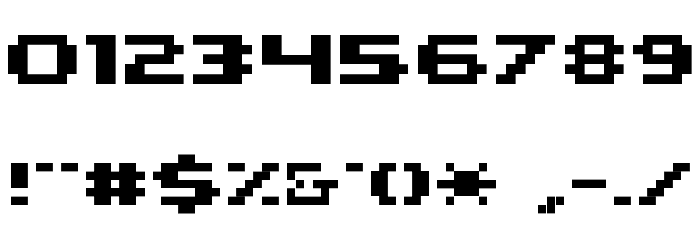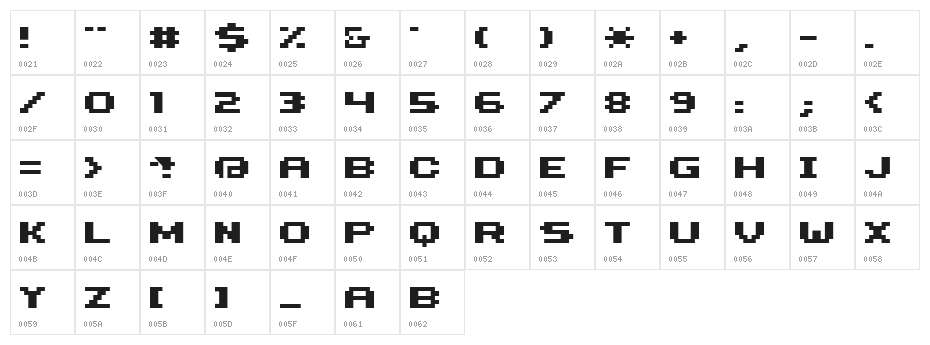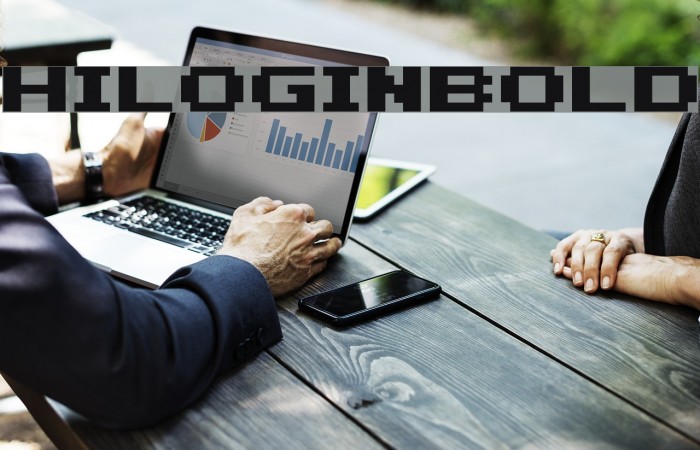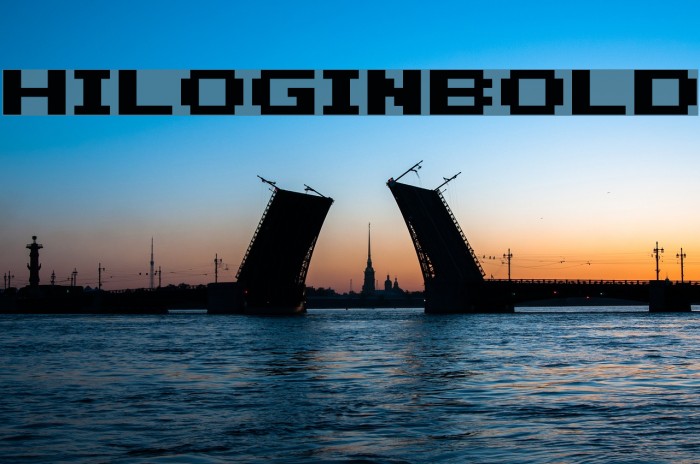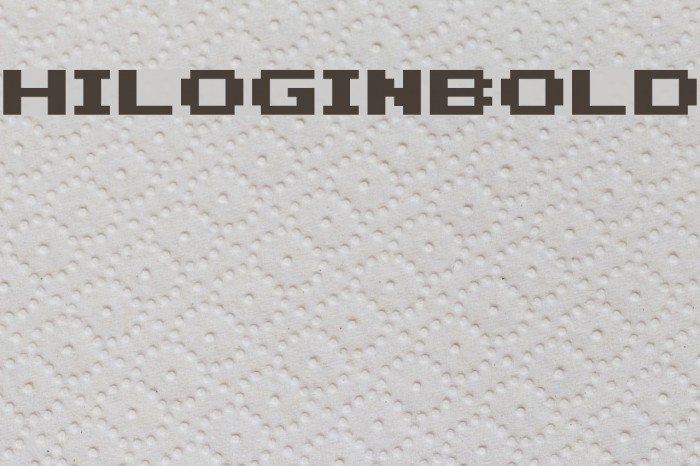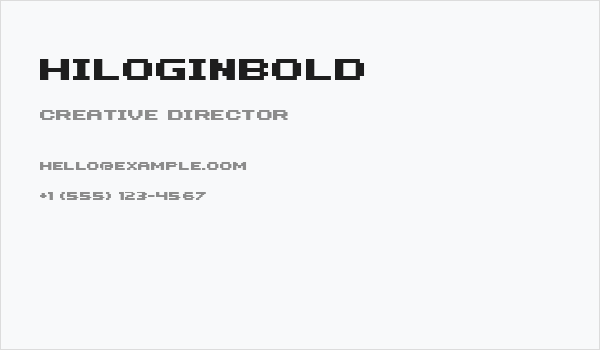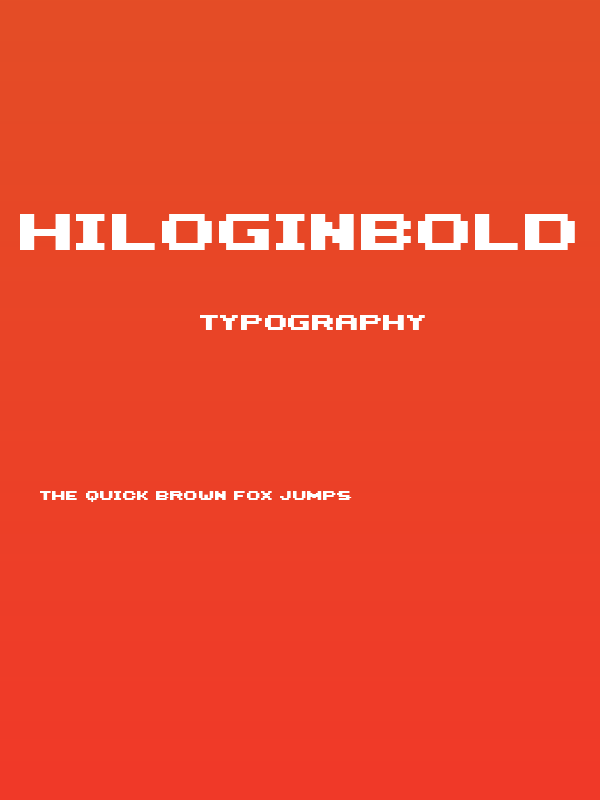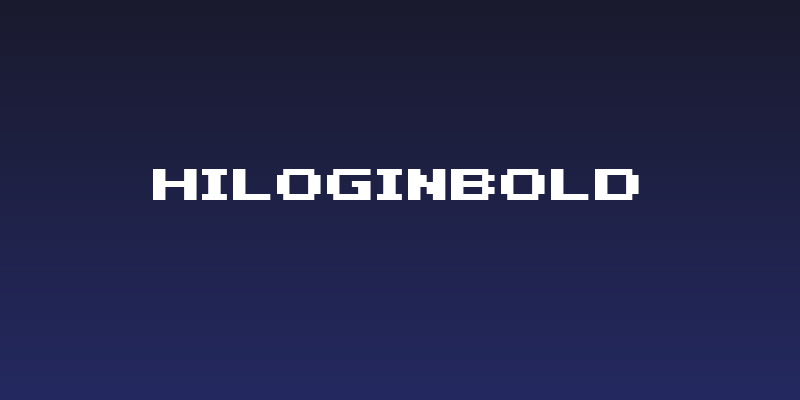
HILOGINBOLD Font
HILOGINBOLD Description
This font features a bold, blocky design with a pixelated aesthetic reminiscent of early digital displays and video games. The characters are uniformly wide, with a consistent stroke thickness that gives it a strong, impactful presence. The uppercase letters are particularly striking, with sharp angles and a geometric form that enhances its digital feel. The numbers and special characters maintain this cohesive style, ensuring readability and visual consistency across all elements. This font is ideal for projects that require a retro or tech-inspired look, offering a nostalgic nod to classic arcade games.
| Proposed Projects | Ideal for video game graphics, tech-themed posters, retro digital displays, and branding for tech startups. |